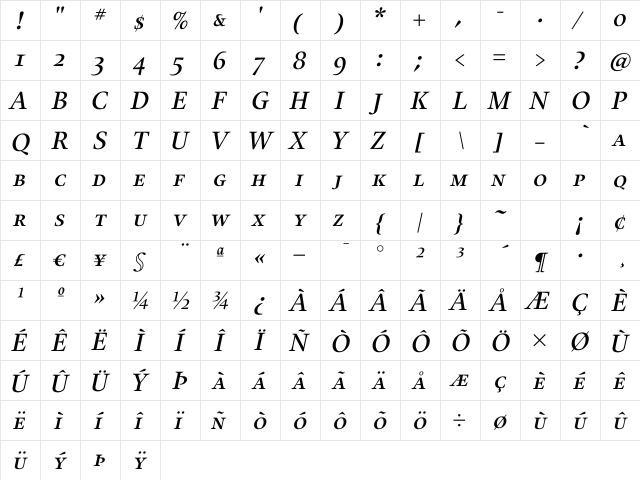
Alias UnionSC Medium Italic Regular
Design Context for Alias UnionSC Medium Italic Typeface
Alias UnionSC Medium Italic takes a measured approach to typography — its balanced proportions and neutral character make it a reliable workhorse for both digital and print work. The dynamic lean of this cut emphasises speed and emphasis in any layout.
Pro Tip: Use Alias UnionSC Medium Italic for emphasis, pull quotes, and subheadings where its slanted energy can add rhythm to the layout.